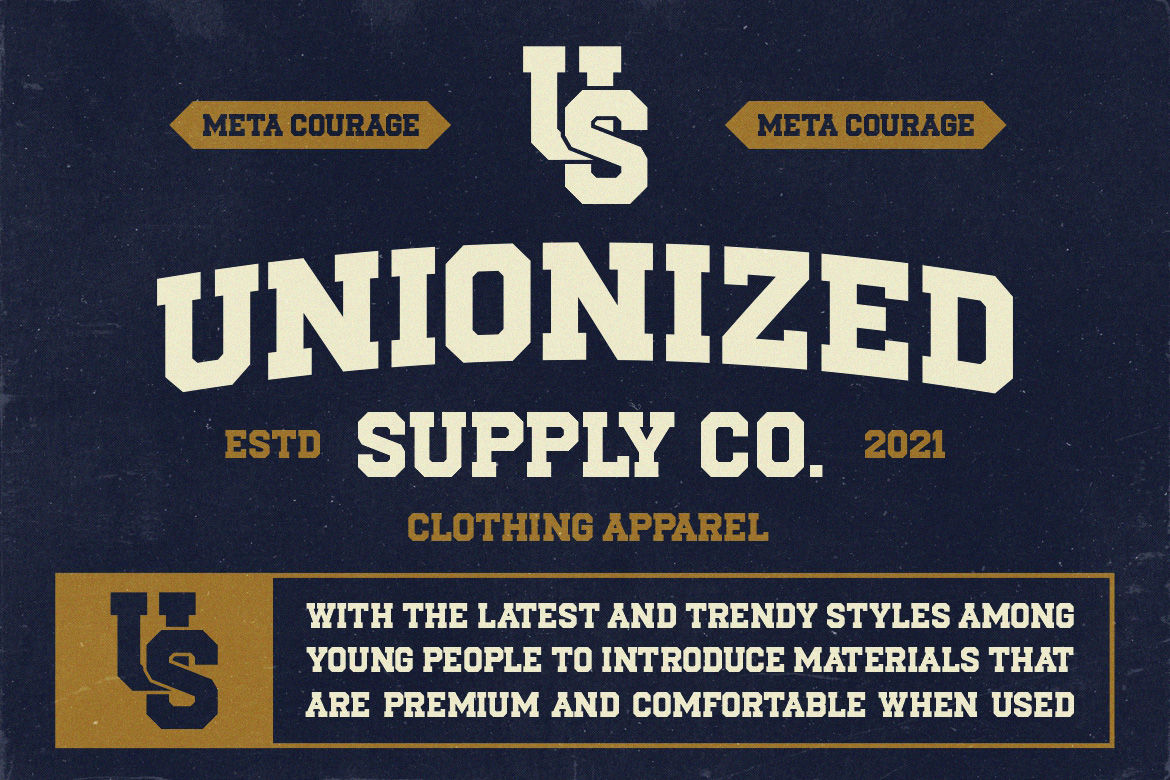
Industrial Fonts – When to Use and Avoid Them!
Industrial fonts have a set of unique characteristics, sometimes can be a bit tricky to integrate into different design contexts. To create a harmonious graphic using this font, designers are required to pay attention more on font pairing and other technical considerations.
So, you might also be wondering, when is exactly the best time to use them and when to avoid them. This article will offer an explanation about this, let’s delve into the details now!
When to Use Industrial Fonts
Industrial typefaces are commonly popular for their geometric and sharp appearances. This style generally match well for anything related to industrial and techno fields, such as:
⦁ Industrial Company Branding
The boldness and consistent strokes of industrial typefaces convey precision and toughness, making them suited for manufacturing, engineering, and construction brands.
By way of explanation, the font’s visuals are excellently matched with the industrial company’s vibe. They instantly project the toughness of industrial environments.
⦁ Tech Event Poster
While this font can be an excellent choice for industrial companies, it also offers an ideal pairing for tech events. You can use them to create posters for tech competitions, tech conferences, and tech product demonstrations. It must be effective to attract attention.
⦁ Futuristic Design Themes
Industrial fonts also have a futuristic look and dystopian feel, visually communicating something advanced. If your brand is targeting tech savvy audiences, this font can be used to attract their curiosity.
⦁ Tech Product Packaging
Tech industries, especially those who sell hardware products, need a packaging design that can highlight their products’ quality and durability well.
Industrial typefaces with its bold characteristic can suggest credibility and increase the products’ value. This is important for building consumers’ trust and showcasing brands’ competencies.
⦁ Editorial Layout for Industry Contents
Not merely applicable for posters and packaging, this font has something to offer for industrial print and digital contents. Using them for UI web design and magazines about engineering or manufacturing can reflect industrial professionalism.
This font also has great scalability when used in a big billboard or other display media. It helps companies or brands determine its position as a focused and reliable choice in the field.
When to Avoid Using Industrial Fonts?
Meta Courage 2
Although this font has a lot of beneficial impact, there are also certain cases where it might not be the perfect fit. For the best approach, it is recommended to avoid using them specifically in the following cases:
⦁ Friendly Personal Branding
Friendly personal branding usually needs design elements that can convey a sense of warmth and comfort. This is something that you may not find in industrial typefaces with its mechanical feel and utilitarian tone.
It will make your design less friendlier and have minimum emotional connection. So, if you are working on soft branding in fields like hospitality and personal care, it’s better to choose more playful or lighter fonts to match with your branding strategies.
⦁ High-End Projects
High-end projects are identical with exclusivity and luxury. Target audiences may also expect first-class experiences with a sense of warmth. Industrial fonts may not be able to project the feels because of its bold characteristics.
Instead of inviting the target audience’s attention, it may create unapproachable design and mismatch with the brands’ value. This font works well for high-end projects only if it is related to industrial, tech, or architecture fields.
⦁ Feminine Designs
Feminine designs suggest something elegant and graceful. It is less matched with industrial typefaces energy that have a sharp and heavy vibe. They visually showcase toughness, so it will make your feminine designs lack delicate feels.
For alternatives, choose fonts that have softer flows and elegant letterforms, such as handwritten fonts or script fonts that are available and easy to download on HansCo Studio.
⦁ Academic Contents
While industrial fonts convey professionalism, they are still lacking the formality required for academic contents. They may appear too cold, especially in the context of narrative academic contents, like resumes and reports.
But, they are still applicable in the academic context, such as digital contents for STEM department branding, industrial infographics, and coursework.
⦁ Legible Digital Interfaces
For digital projects that prioritize legibility, this font is less suitable because it only has a limited hierarchy.
It means the level of readability may decrease in a complex system and on smaller screens. You are required to do extra accessibility testing to make sure of its readability.